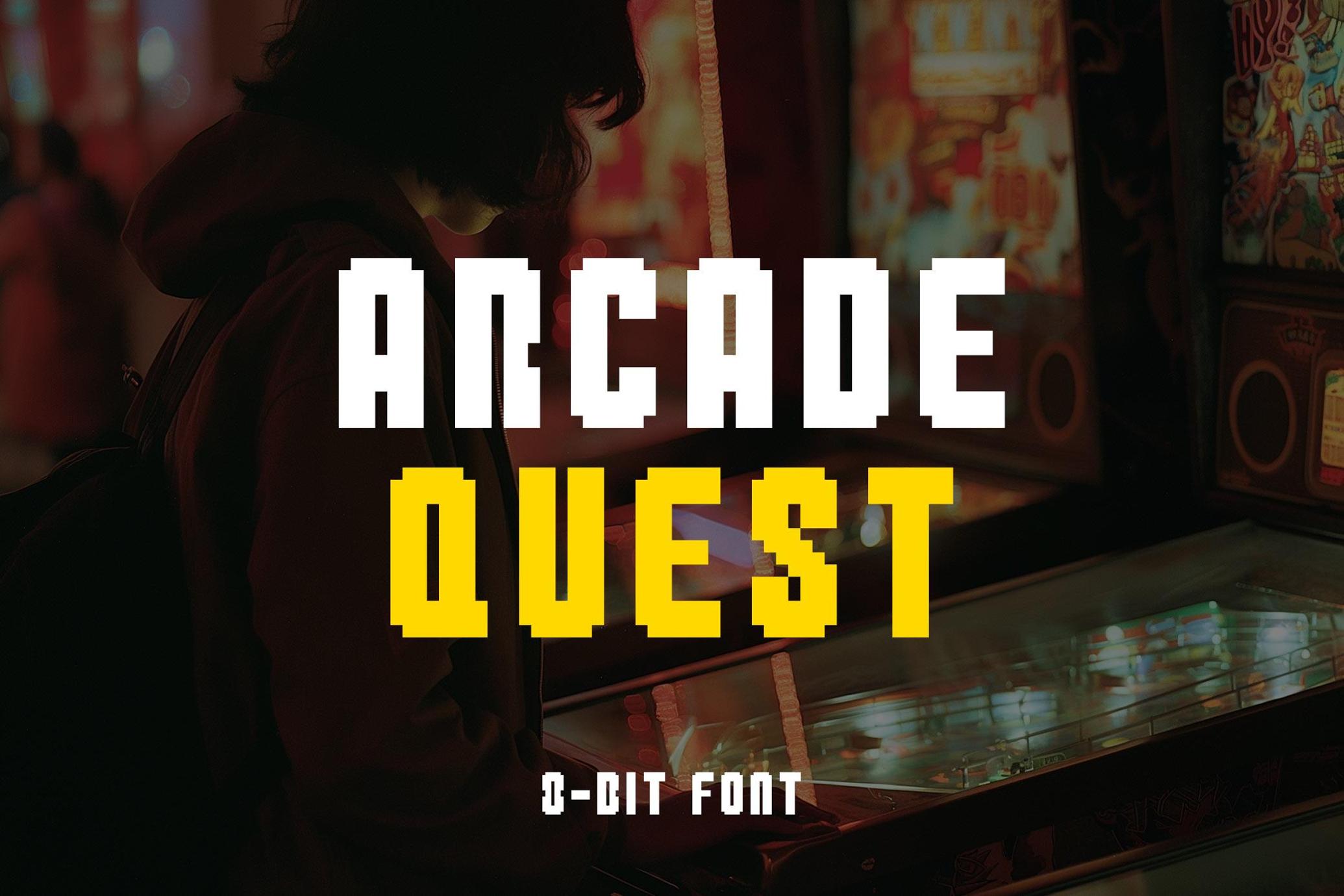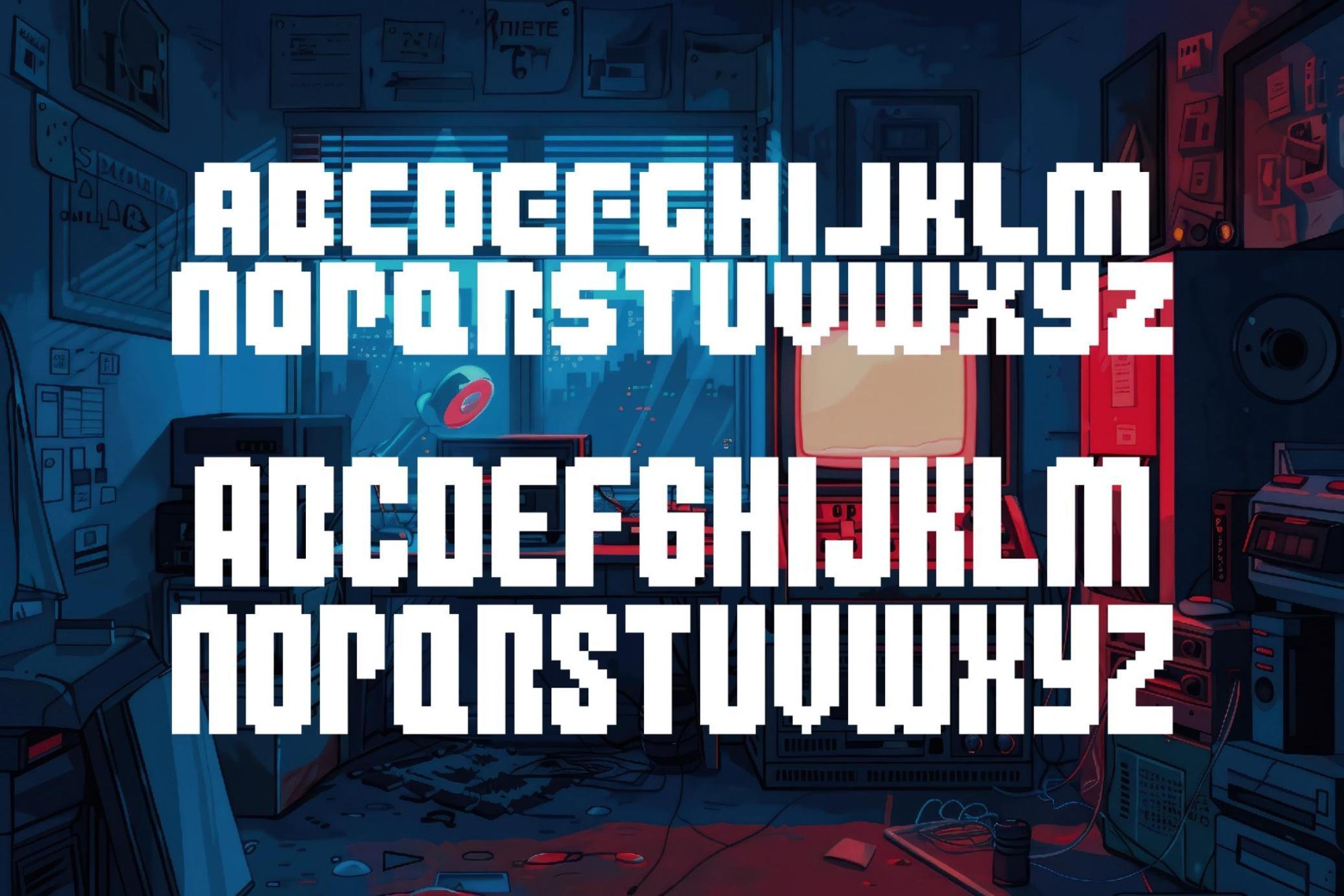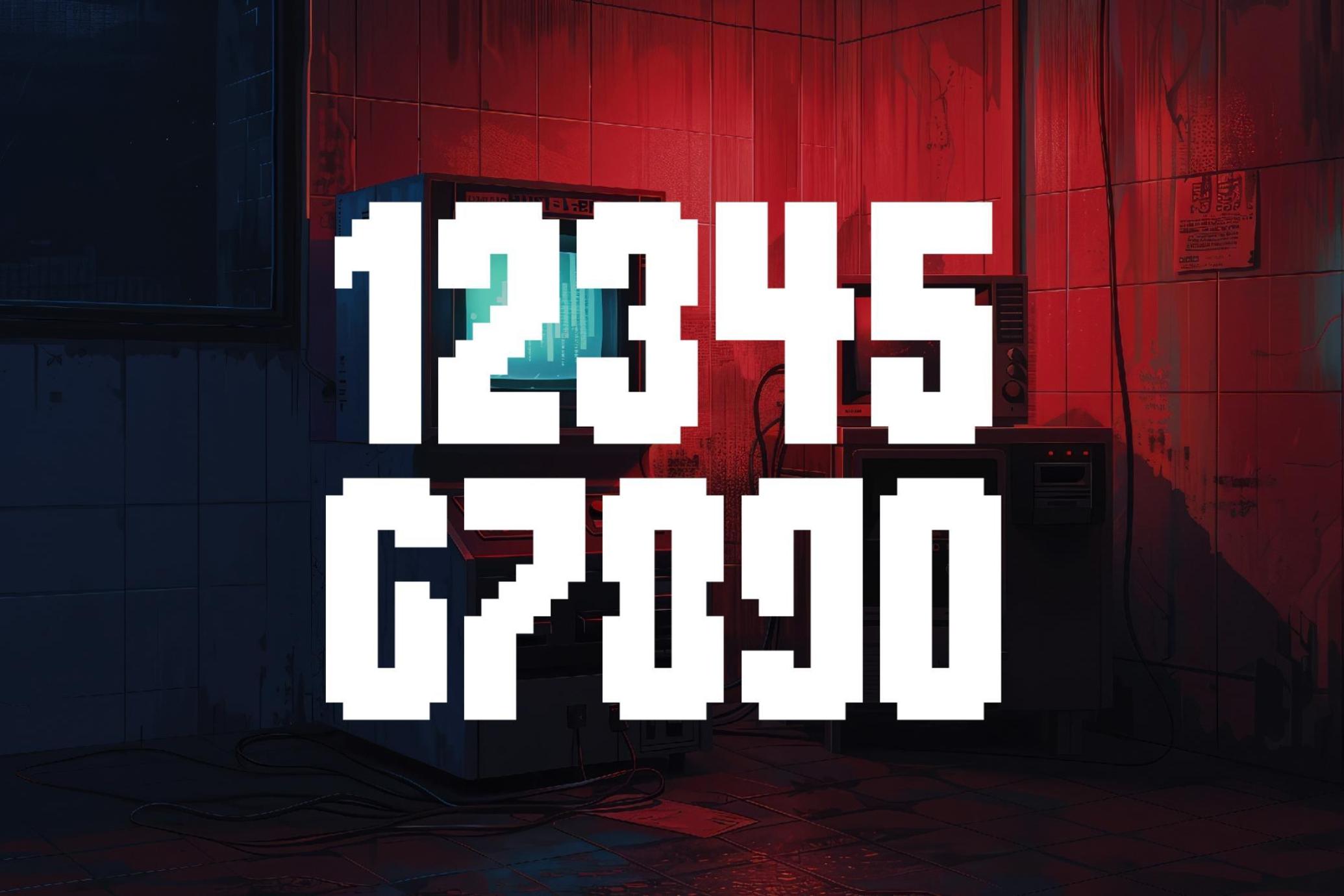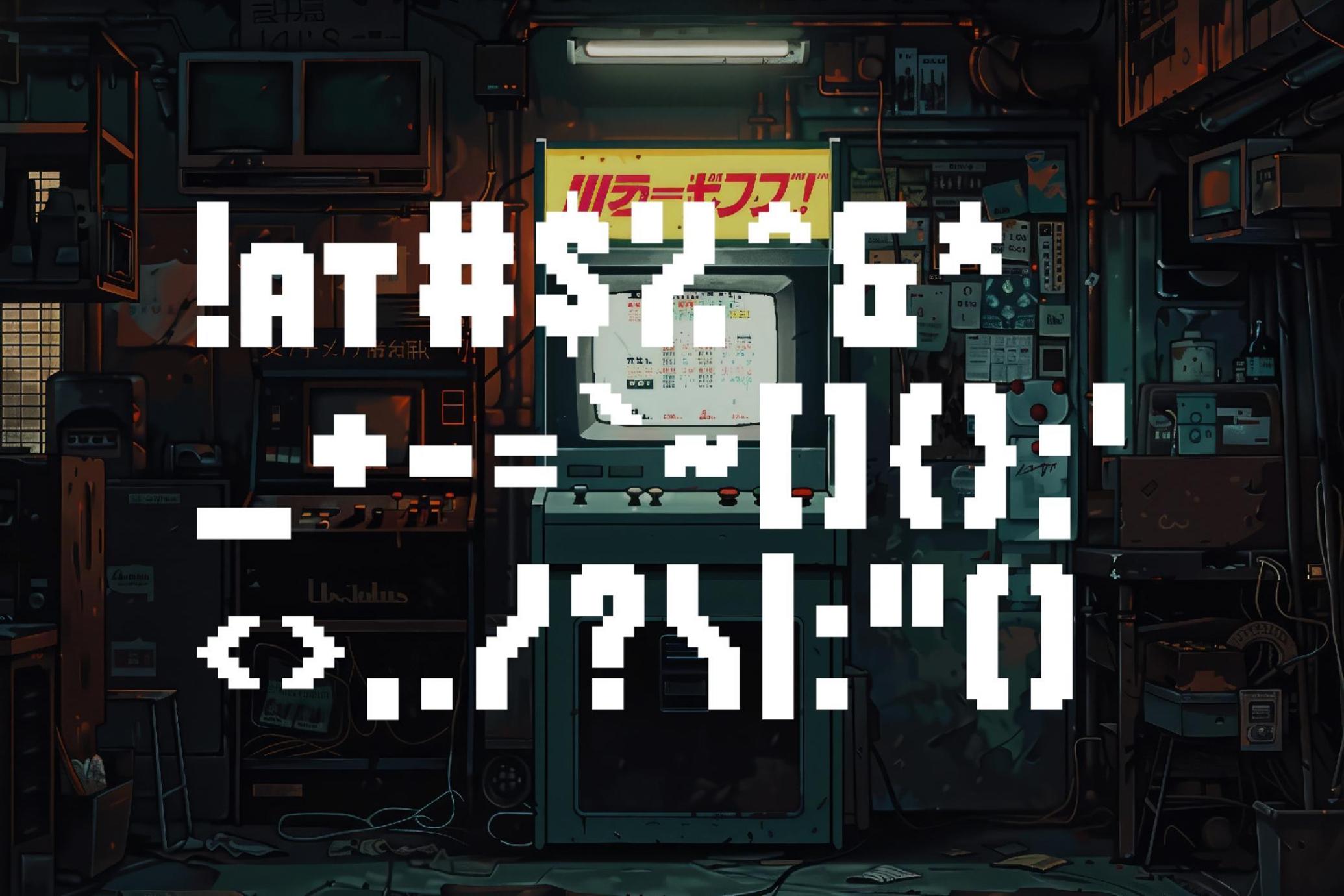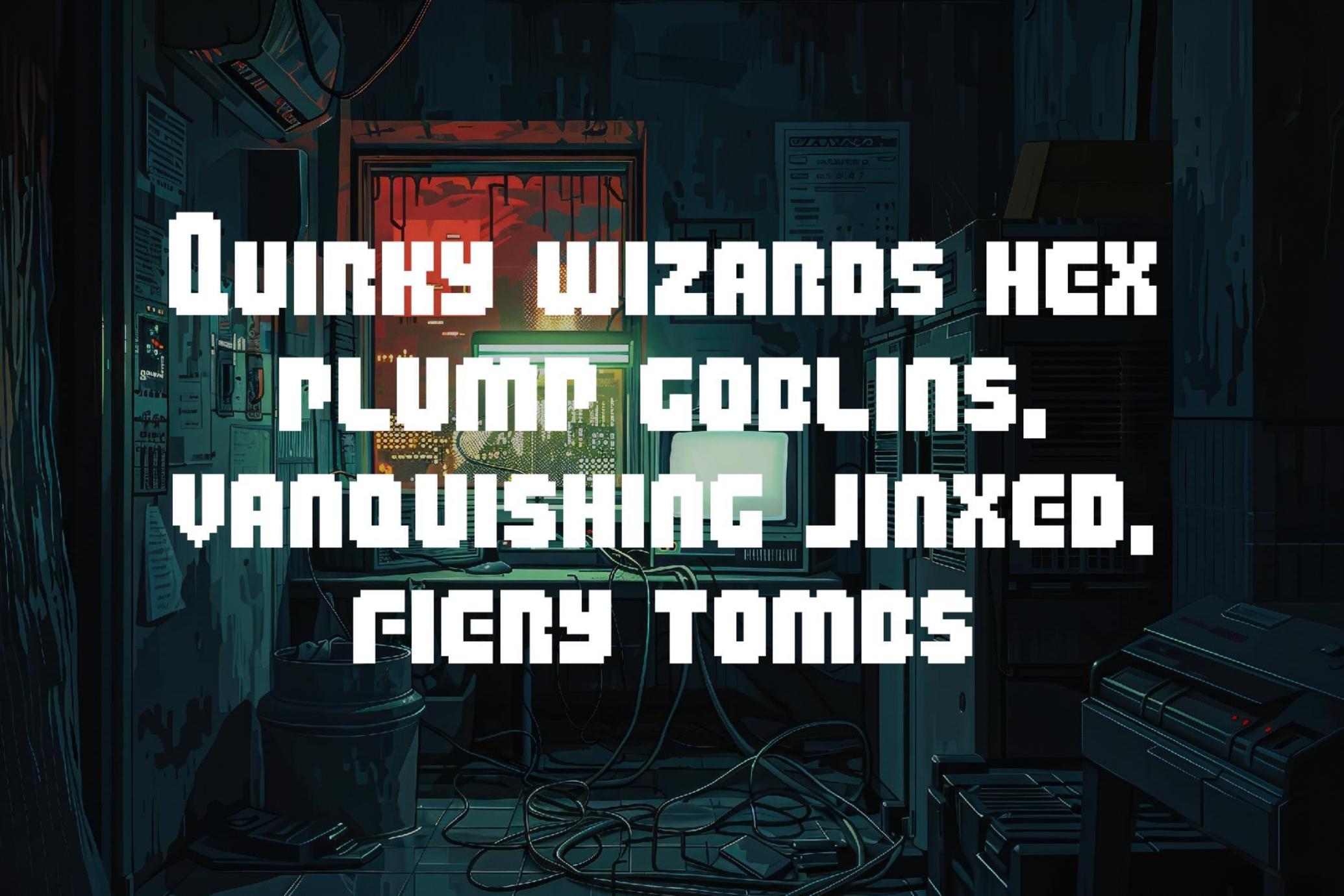
Arcade Quest - 8Bit Font
Dive into the heart of gaming nostalgia with Arcade Quest – the ultimate pixel 8-bit font that teleports you back to the golden era of arcades and vintage gaming consoles. Crafted with a deep understanding of classic digital aesthetics, Arcade Quest is more than just a font; it's a time machine designed to bring the vibrant spirit of the '80s arcade scene into the present day.
Designed meticulously to capture the essence of retro gaming, Arcade Quest combines the charm of 8-bit graphics with the clarity and functionality needed for contemporary design. Its pixel-perfect characters are engineered to stand out, making it an ideal choice for game developers, graphic designers, and anyone eager to infuse their projects with a dose of nostalgia.